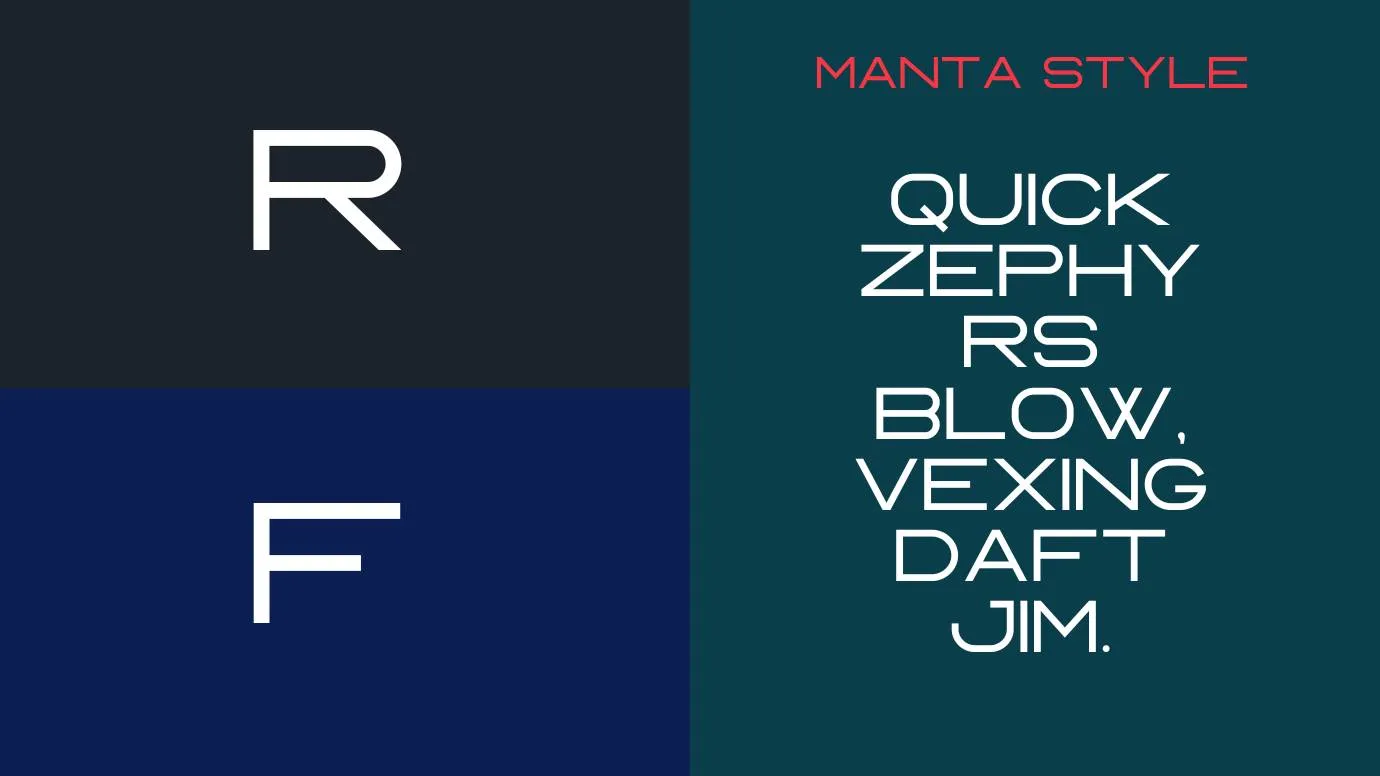
Font Introduction
Manta Font Family which is a famous script typeface. This font family was designed by a very famous font foundry which is Vilogsign. Its free version is only obtainable in TTF format. This awesome font family has three classic weights that are round, sharp, and rough.
Its eye-catching features are available in both free and paid versions of this font. This font has a freeware text-converting tool known as the generator tool. To copy and paste text on this tool, you will get classic results. It is also good for making pairing with any similar texture like rebel script font which is also a unique script typeface.
Details of Font
Name | Manta Style Font |
Type | Script |
Designer | Vilogsign |
What font is an alternative to Manta Style Font?
Wished font is the perfect alternative to this unique typeface that comes in the script font family.
Who is the owner of Manta Style Font?
Vilogsign is the designer and owner of this amazing look font and this font family comes in the script font family.